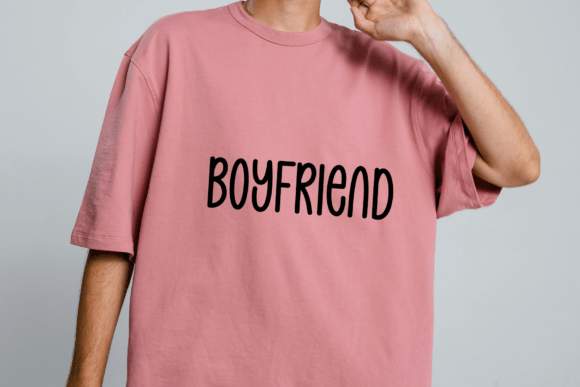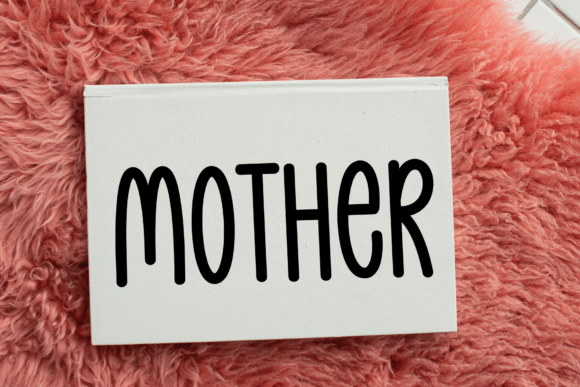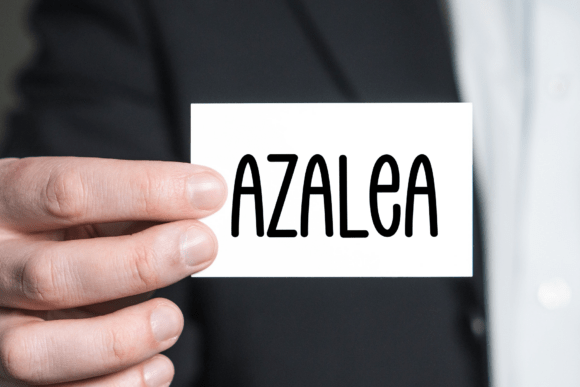
Introduction to Roselia Font
Have you ever found yourself rummaging through your childhood art supplies, searching for that perfect marker to bring your creative vision to life? The tactile feel of a marker gliding across paper, the vibrant colors bleeding into one another – it’s a sensation that can transport you back to a time of unbridled creativity. For designers, finding the right font can evoke a similar feeling, and the Roselia Font is one such discovery that can elevate your design projects to new heights.
As a handwritten font that exudes a relaxed and sporty vibe, Roselia Font is the perfect addition to any design resource arsenal. Whether you’re working on branding, logos, wedding supplies, or greeting cards, this font’s luxurious and elegant yet casual feel makes it an invaluable asset for designers seeking to create high-quality, visually appealing content.
Key Features of Roselia Font
- Features a unique and elegant design with a transparent background
- Perfect for use in digital art, graphics, and design projects that require a touch of sophistication
Honest Review: Roselia Font
I recently came across the Roselia Font, and I must say it’s a wonderful addition to any designer’s toolkit. This free download is perfect for those looking for a high-quality, elegant font to use in their creative project.
What works well: ✨ The font’s transparent background makes it incredibly versatile, allowing you to layer it over images or other design elements with ease. The clean lines and subtle curves give it a sophisticated feel that’s perfect for both digital and print projects.
Here are some key features that stood out to me:
- Perfect for creative projects, including digital art, graphic design, and more
What could be improved: ⚠️ While the font is free to download, it’s only available in a single weight, which may limit its use in certain projects. Additionally, some users may find the font’s elegance to be too subtle, making it less noticeable in certain designs.
Overall, I’m impressed with the Roselia Font. Its elegant design and versatility make it a valuable resource for designers. While it may have some limitations, it’s definitely worth checking out for your next creative project.
Tips for Getting the Most Out of Roselia Font
To get the most out of Roselia Font, use it in combination with other design elements, such as images and shapes. Experiment with different font sizes, colors, and styles to create a unique look. You can also use Roselia Font as a free download and customize it to fit your creative project.
Roselia Font is perfect for creating a wide range of design projects, including social media posts, presentations, and documents. It is also a great design resource for creating transparent backgrounds and high-quality graphics.